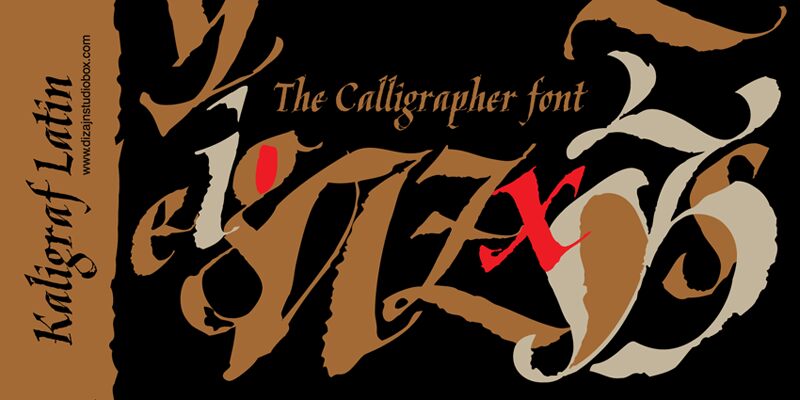
Kaligraf Latin by Lazar Dimitrijevic is a free medieval blackletter font with a sharply cut, calligraphic edge. Its uneven contours, long pointed strokes, and restless changes in width recall lettering drawn with a broad nib, then deliberately roughened.
It is well suited to bands, taverns, and fantasy game studios seeking a dark, handmade identity. Posters and album covers suit it too. Across these uses, the torn-looking edges and dramatic capitals turn each name into a hand-rendered insignia.
The characters are based on handwriting taken from the creator’s calligraphy. The font includes a few ornaments.
At the request of users of “Kaligraf Latin,” the creator made the Cyrillic version, “Kaligraf Cyr.”
The font was created by Lazar Dimitrijevic of Posterizer KG Foundry.